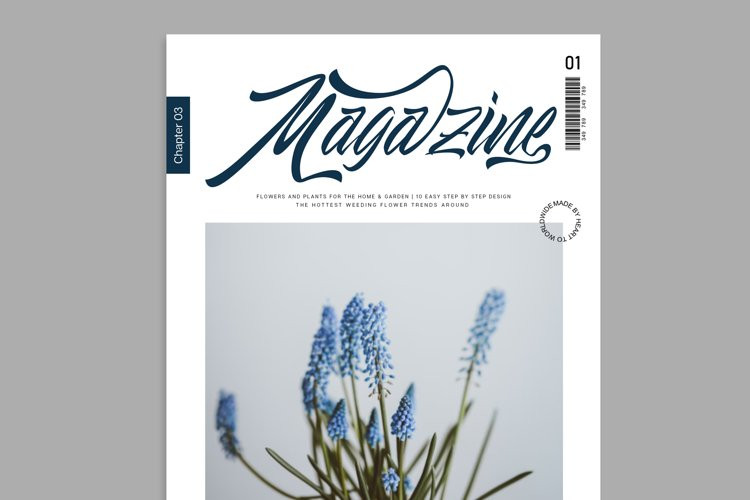
Atlantic Extended Font
Atlantic Extended is Calligraphy font includes uppercase, lowercase, punctuation, numbers, support multilingual, good ligatures and alternate with swash
This font will be good use to branding your brand, tshirt design, lettering design, logo, or looks great when combined with your product for instagram post or instagram story.